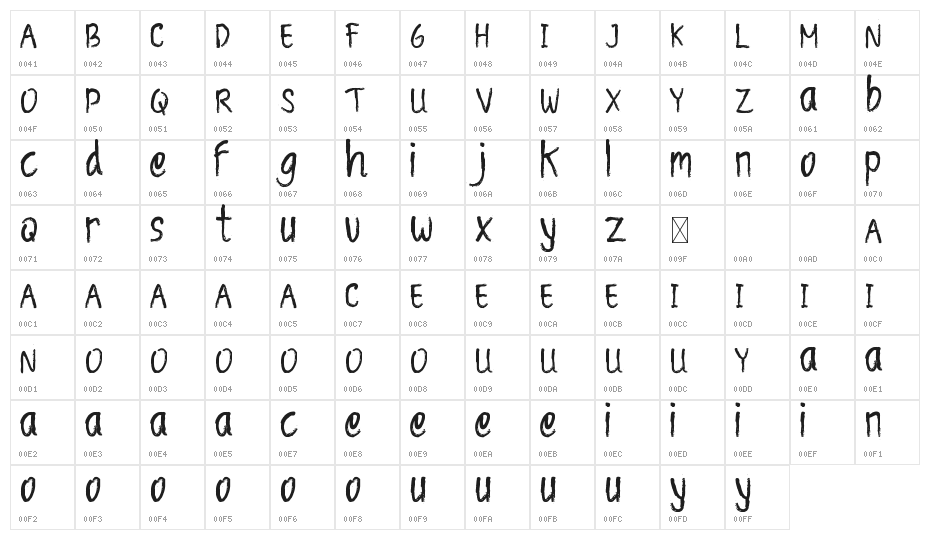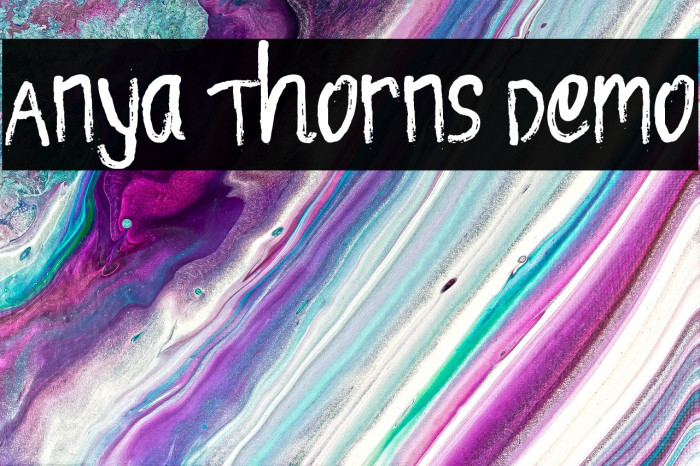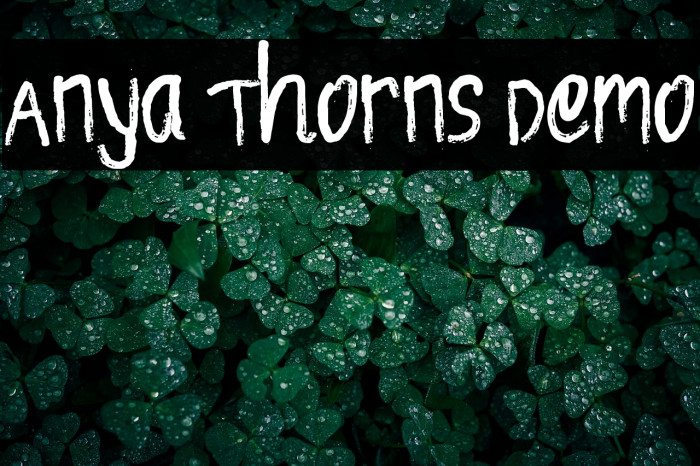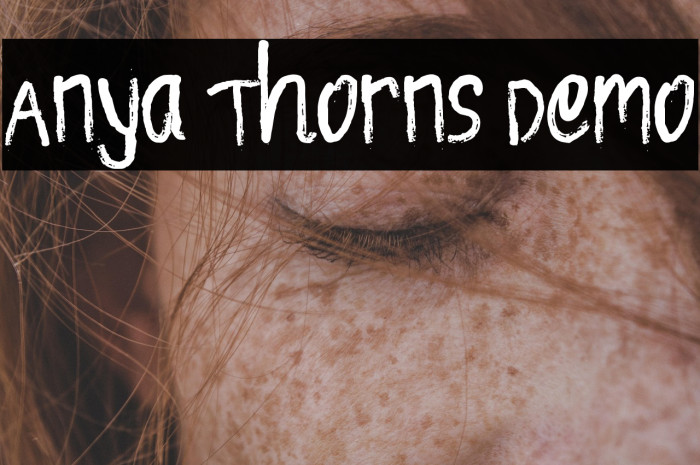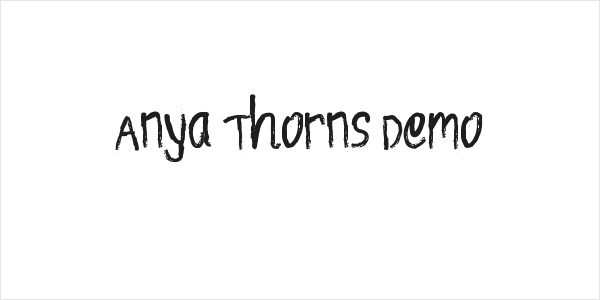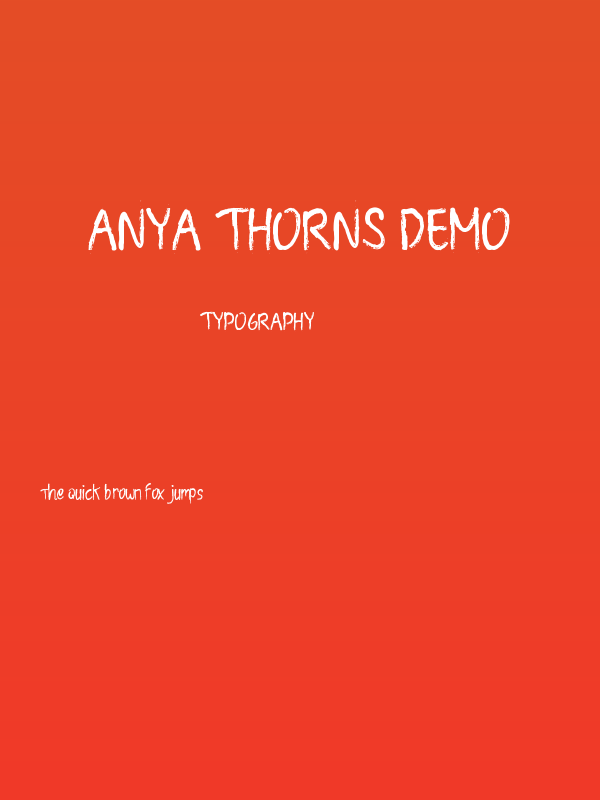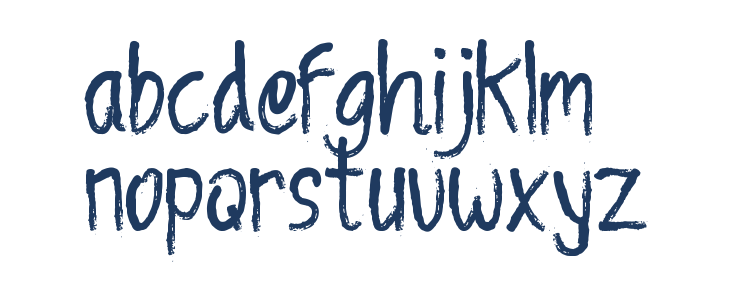
Anya Thorns Demo Font
Anya Thorns Demo Description
This font features a rugged, hand-drawn style with a textured appearance that mimics the look of brush strokes or chalk. The characters are bold and slightly irregular, giving them a dynamic and organic feel. The uppercase and lowercase letters maintain a consistent style, with a playful and artistic flair. The font's rough edges and uneven lines add to its charm, making it ideal for creative and informal designs. It captures a sense of spontaneity and energy, perfect for projects that require a personal touch.
| Proposed Projects | Ideal for posters, album covers, artistic branding, and creative social media graphics. |